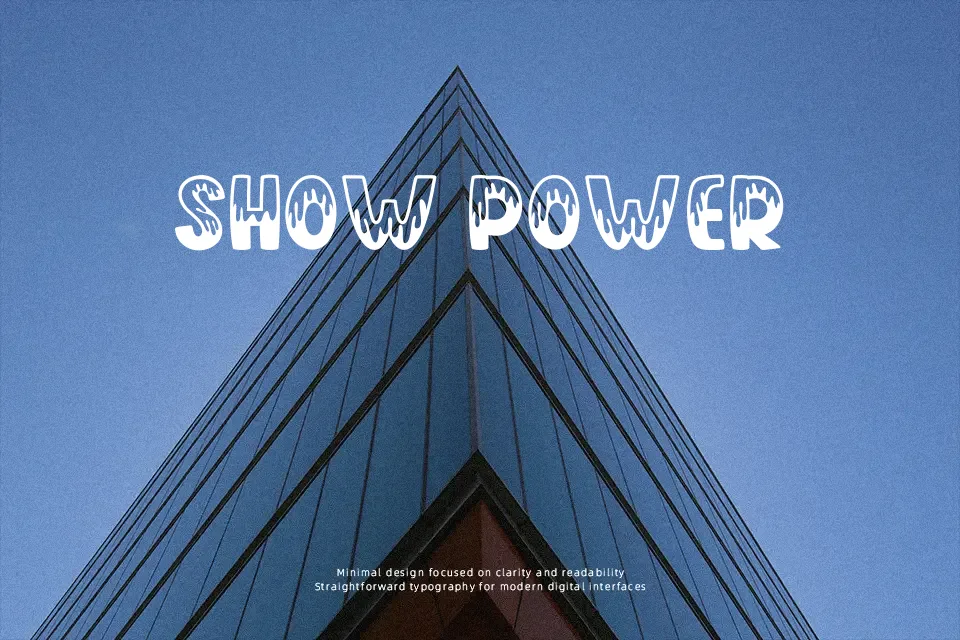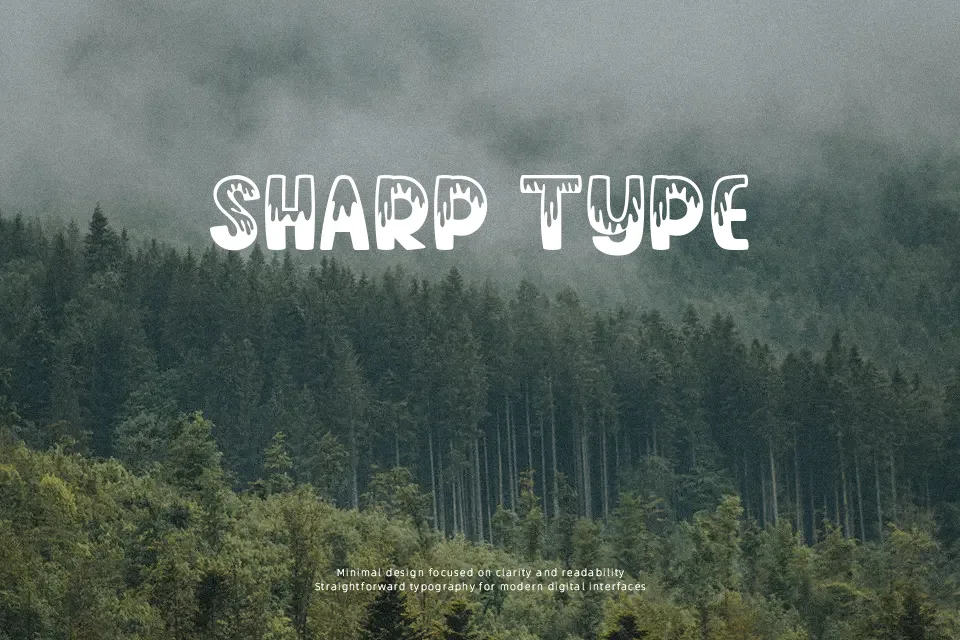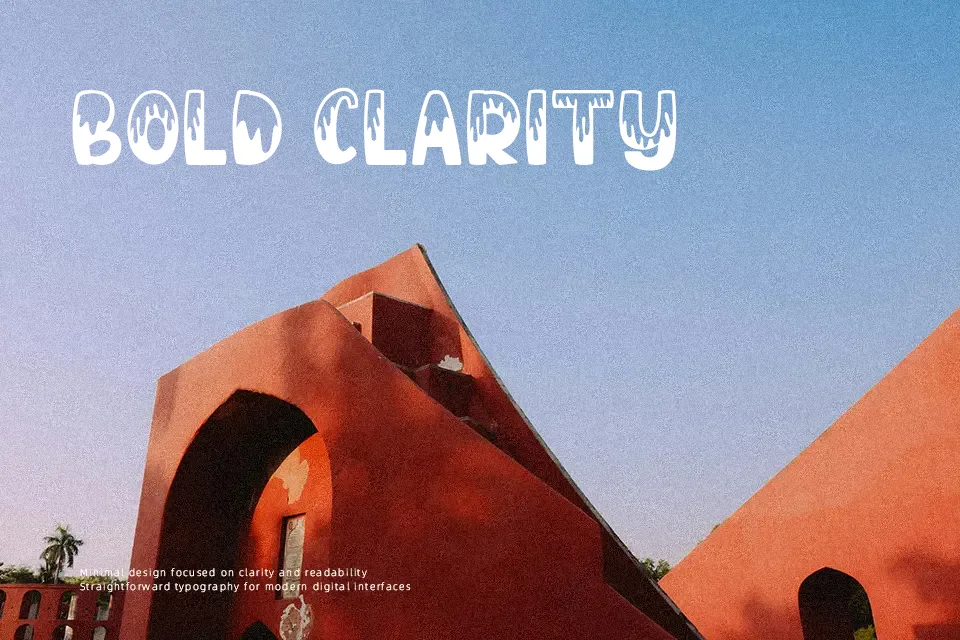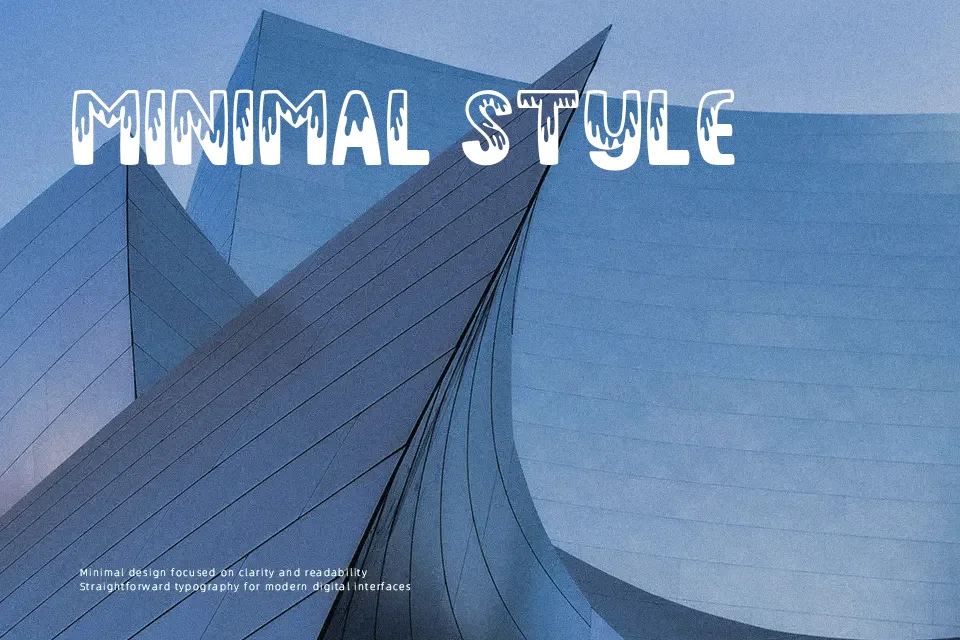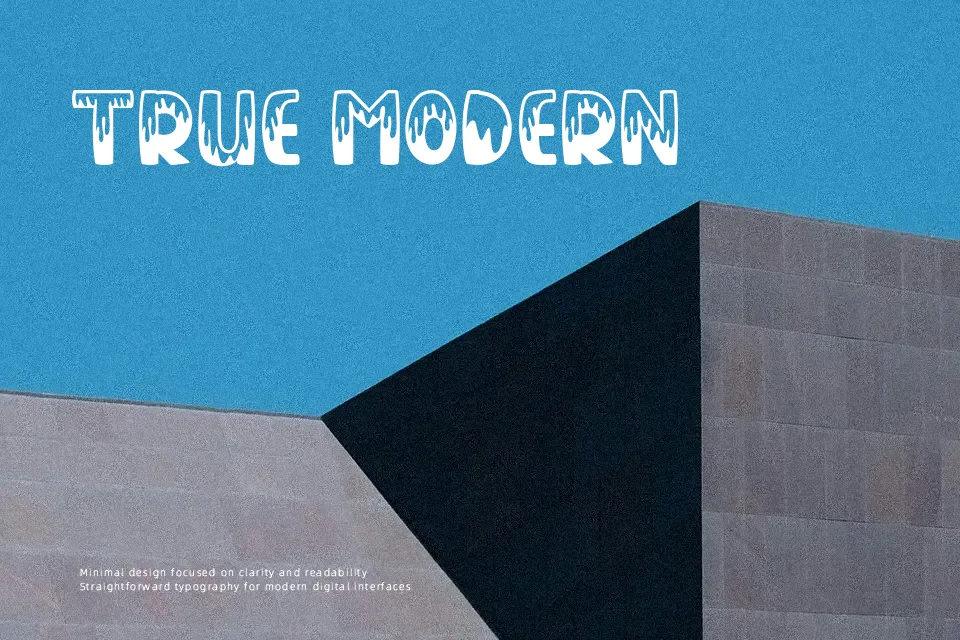
Rainy Snow Font
Designed by Graphicxell
A short product label or poster headline benefits from the thematic charm of Rainy Snow Font, which introduces expressive, weather-themed textural details to its letterforms. The characters are built with a sturdy display structure, supporting the decorative frost and drip-like embellishments without compromising initial recognition at large sizes. Its spacing is relatively open to accommodate the thematic ornaments, giving the typeface a lively, rhythmic baseline. The bold, playful strokes create a friendly atmosphere suitable for winter apparel, festive greeting cards, and creative merchandise. However, the heavy decorative elements become a limitation in smaller layouts, as the intricate thematic details quickly blur and reduce reading comfort in long paragraphs or continuous body text.
winter event posters, holiday merchandise packaging, children’s book titles, seasonal greeting cards
long paragraph text, corporate reports, small interface labels, dense editorial layouts
Perfect for headline, holiday, and kids, with a cold and decorative style.